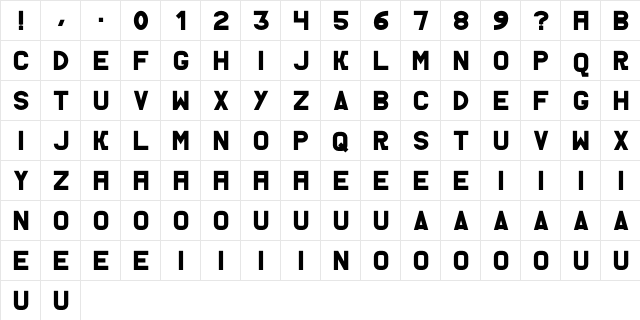
AC Thermes Solid
| Foundry | Adrian Candela |
| Designer | Adrian Candela |
Design Context for AC Thermes Typeface
AC Thermes takes a measured approach to typography — its balanced proportions and neutral character make it a reliable workhorse for both digital and print work.